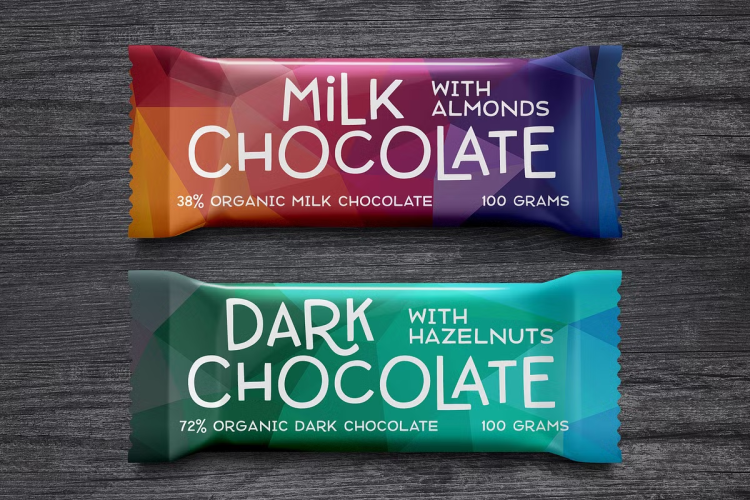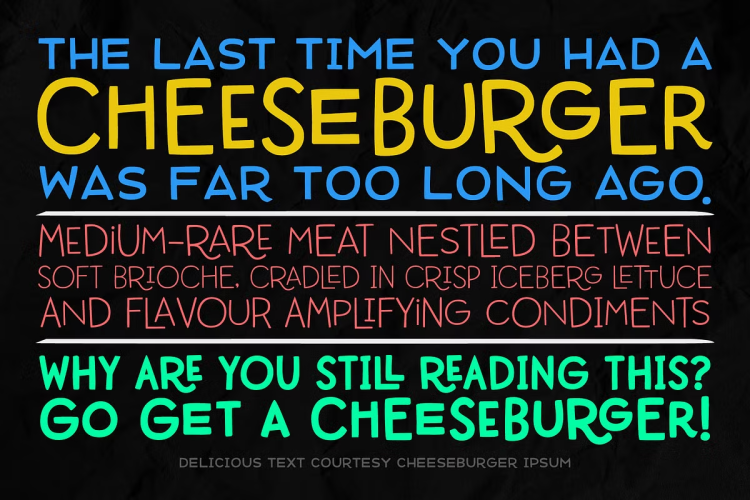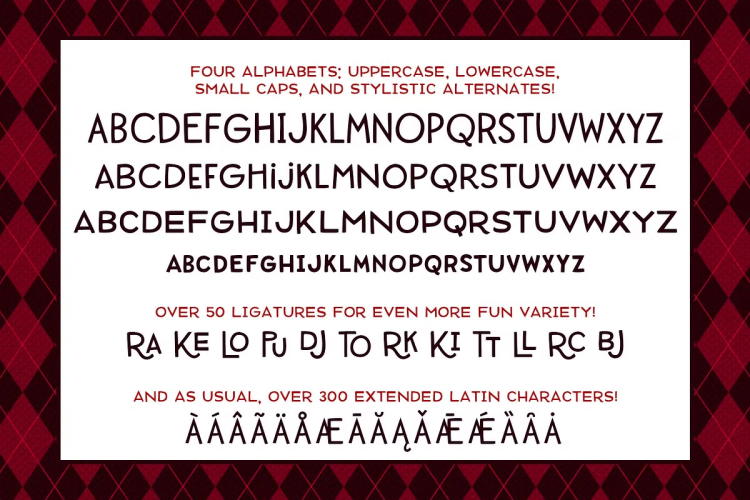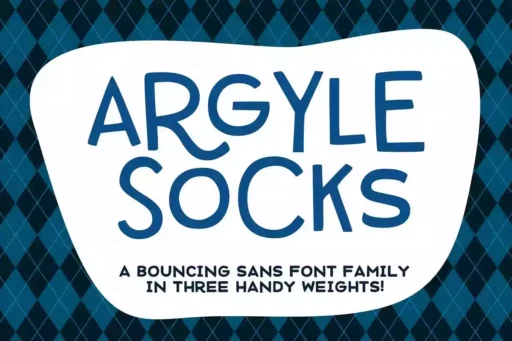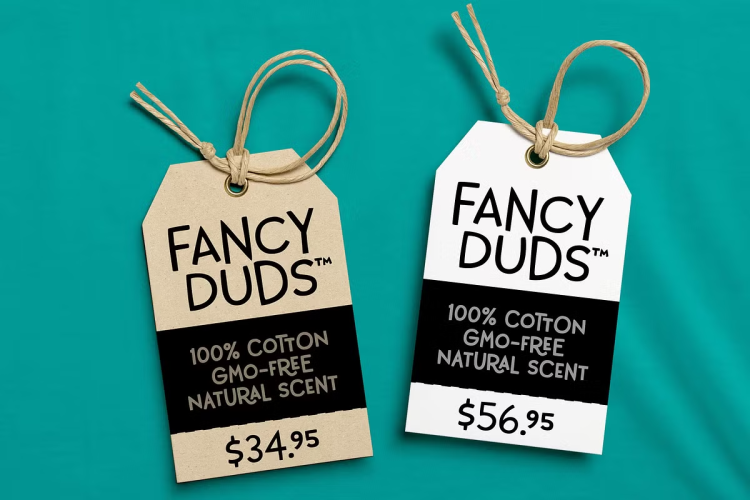
Argyle Socks Font
Argyle Socks is a display font by Missy Meyer. The inspiration he took to design this font started when he watched a video about the movie poster designs by Saul Bass. M…
Argyle Socks is a display font by Missy Meyer. The inspiration he took to design this font started when he watched a video about the movie poster designs by Saul Bass. Most of the lettering was simple and handwritten. The design of the font is entirely handwritten. The font family is uppercase, lowercase, small caps and alternates. It also comes with many two-letter ligatures to make the design fun and entertaining. The weights this font comes in are regular, thin, and thick, giving designers more options. Moreover, the font family also has three different weights with 700 glyphs, including the Greek alphabet and over 300 extended Latin characters for multi-lingual support.
Argyle Socks Font stays legible at small sizes, which makes it a strong choice for navigation, buttons and dashboards in web design and app interfaces.
Clean sans serifs like Argyle Socks Font are the default language of SaaS, fintech and product branding.
Argyle Socks Font is a Sans Serif Fonts typeface tagged Display, Free, Handwritten, Poster. It works well for headlines, logos, posters, social media graphics and branding projects that need a distinctive sans serif fonts look.